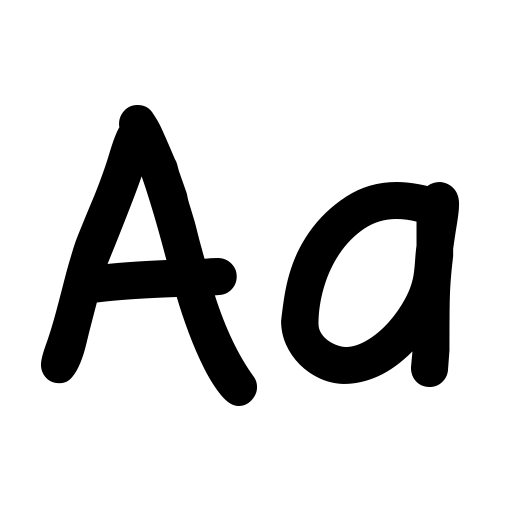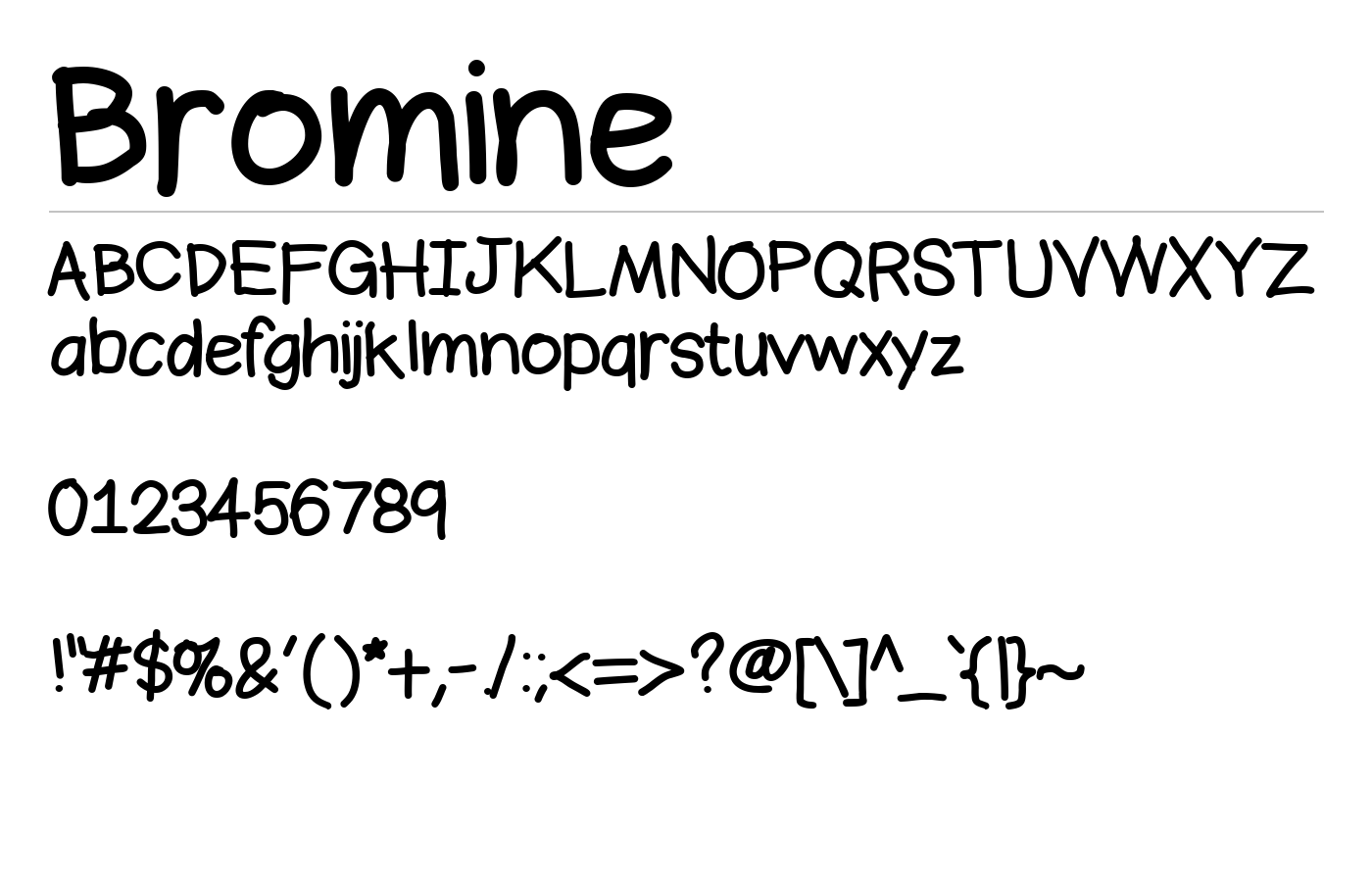
Bromine is a playful and casual handwritten sans serif font featuring lively, irregular strokes that give it a warm and approachable character. Its tall x-height and loose spacing make it highly readable, perfect for adding a friendly, informal feel. This font works wonderfully for children's books, educational materials, and lighthearted branding where a fun and personal touch is needed.
Bromine Font